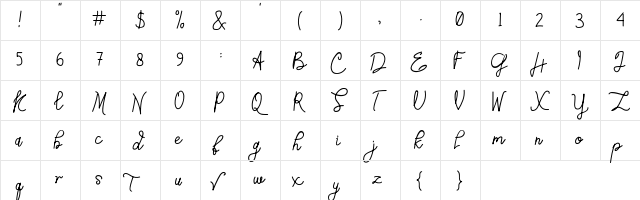
Southeast Regular
| Designer | Artspace 2018 |
Design Context for Southeast Typeface
Southeast is a composed and adaptable typeface that performs quietly and consistently across a wide range of design contexts.